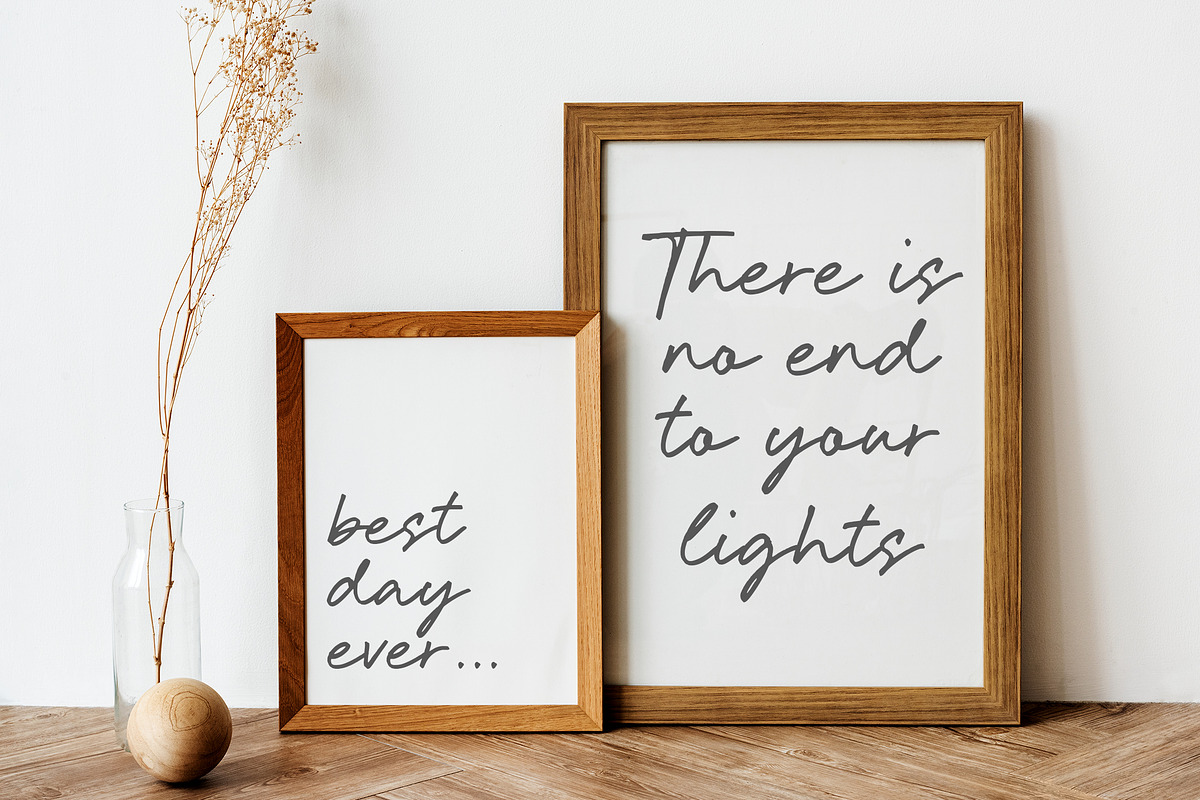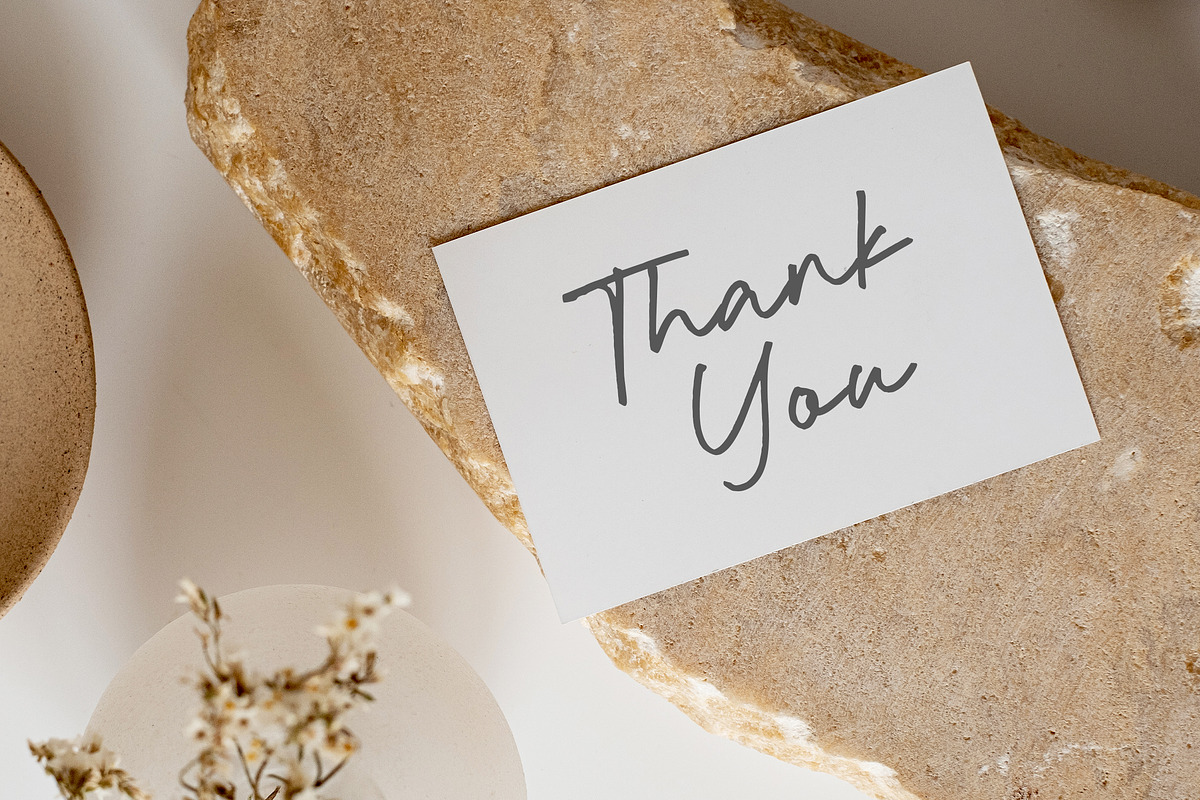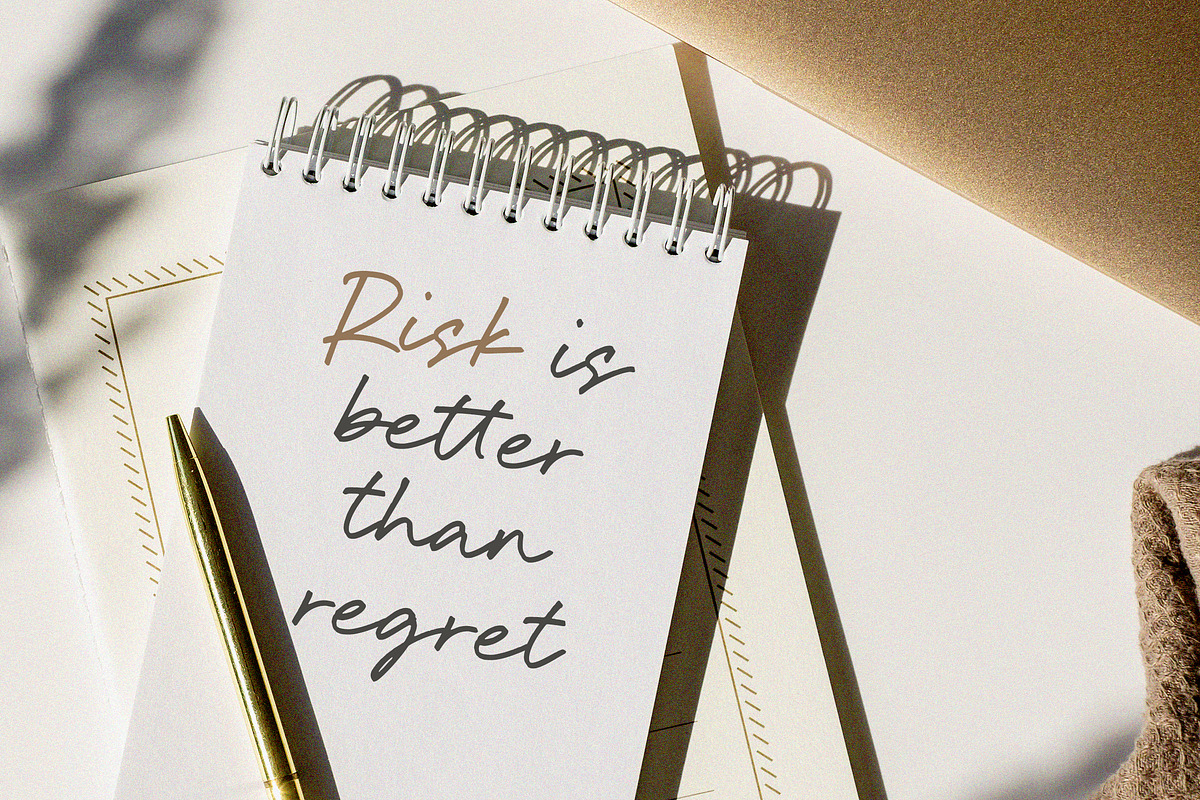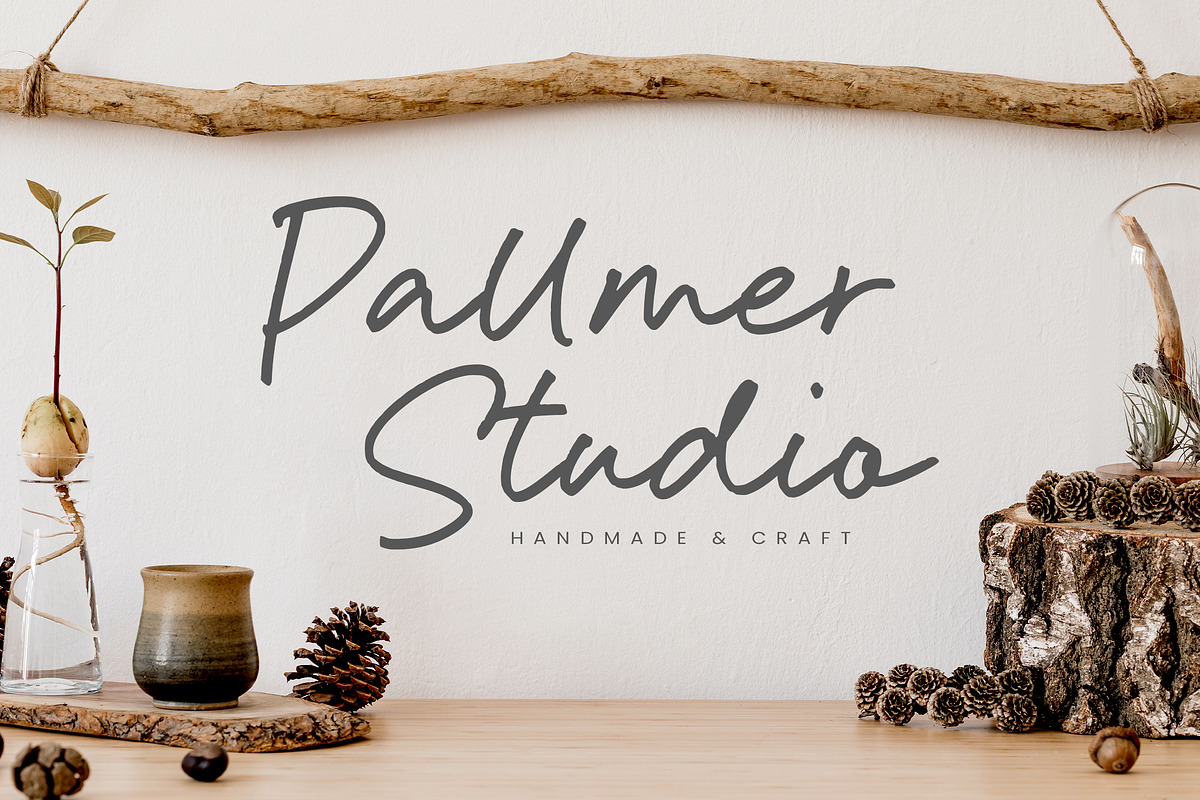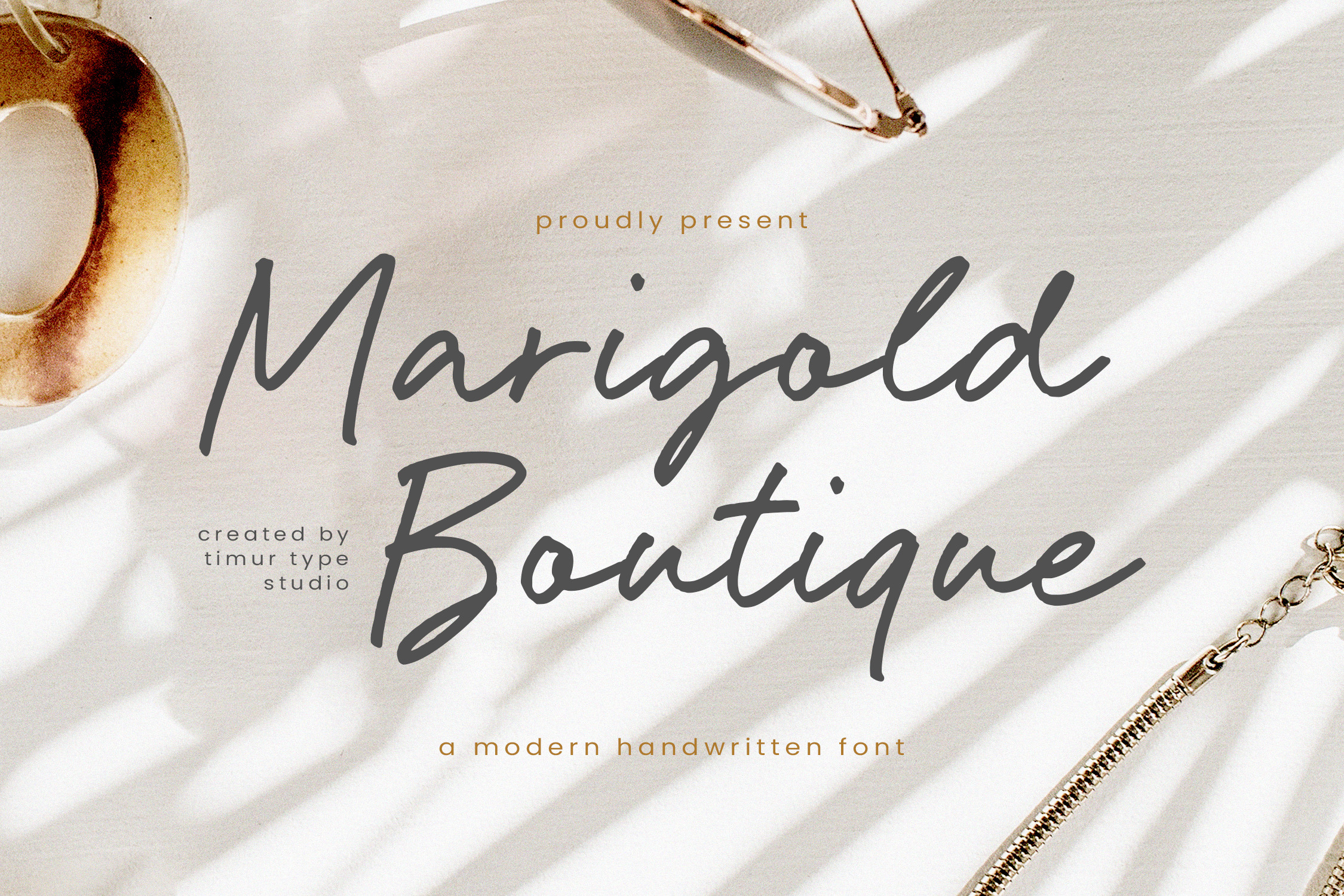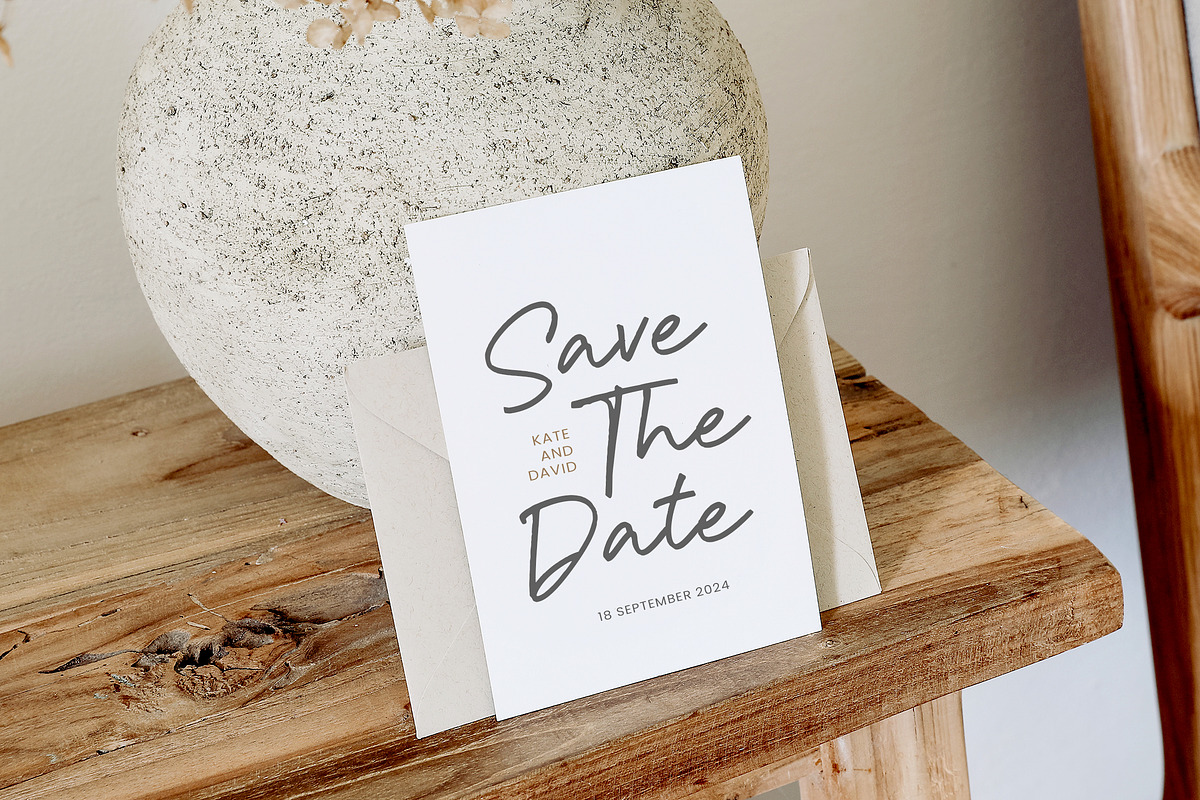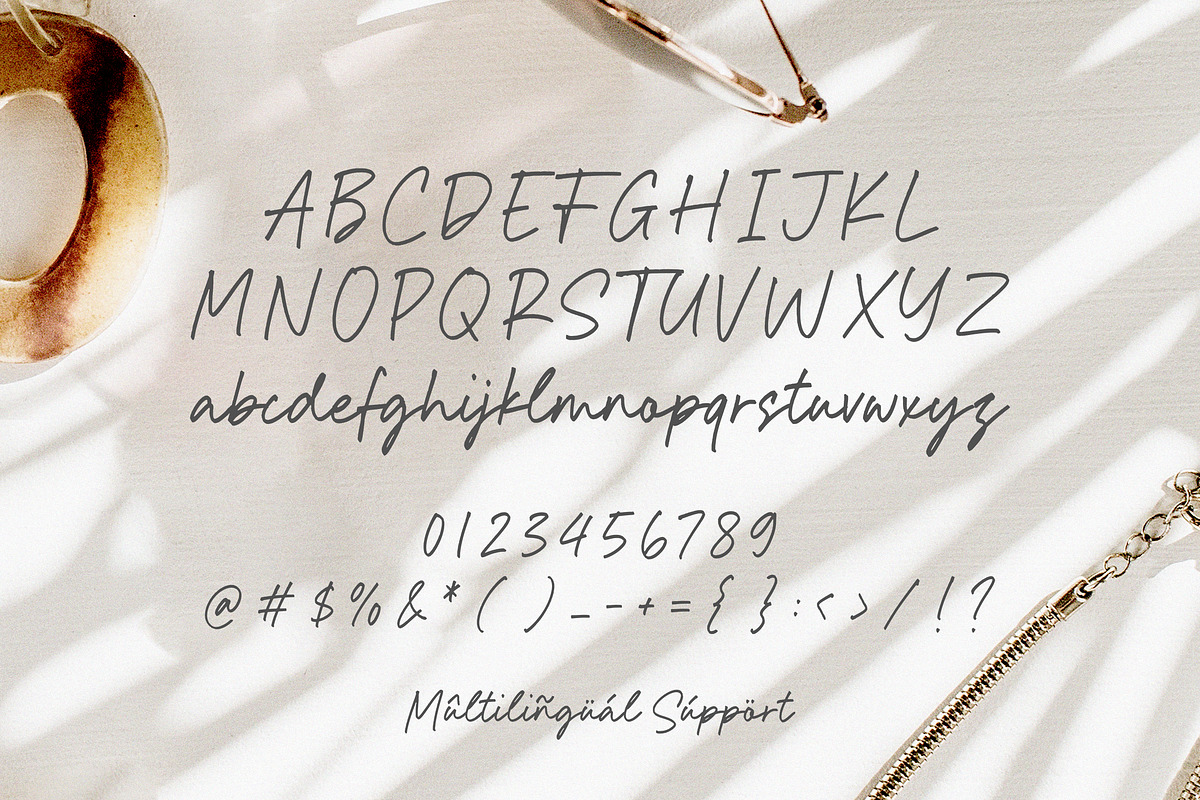
Marigold Boutique Font
Introduced by Timurtype Studio!
Marigold Boutique is a Modern Handwritten Font
This font offers a perfect blend of contemporary style and handwritten charm. With its elegant and flowing letterforms, this font brings a sophisticated and upscale feel to any design project. The modern twist on the traditional handwritten style gives it a trendy and fashionable look, making it ideal for branding, logos, and invitations. The Marigold Boutique font adds a touch of sophistication and refinement to your designs, while retaining a sense of connection and warmth. Embrace the modern elegance and elevate your projects with the Marigold Boutique handwritten font
Marigold Boutique Font also supports multilingualism.